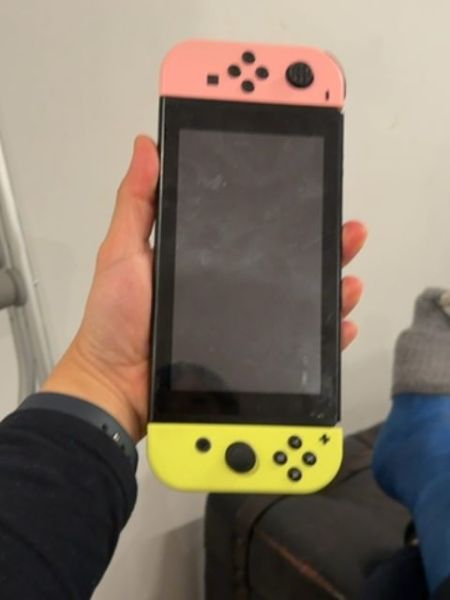
Nintendo Switch
A versatile gaming console that can be used as a handheld or connected to a television for home gaming. It features detachable controllers known as Joy-Cons, allowing for multiple play styles and multiplayer gaming.
The Nintendo Switch branding typically uses a clean, sans-serif typeface reflecting modernity and simplicity. The typography on the device itself is minimal as the focus is primarily on the hardware design rather than text.
The product itself is sleekly designed with a central screen flanked by removable controllers. The controllers are available in a variety of colors, adding a playful and customizable touch to the device.
- The Nintendo Switch offers both handheld and docked television mode.
- It supports multiplayer gaming with its detachable Joy-Con controllers.
- Introduced by Nintendo, it is part of the eighth generation of video game consoles.